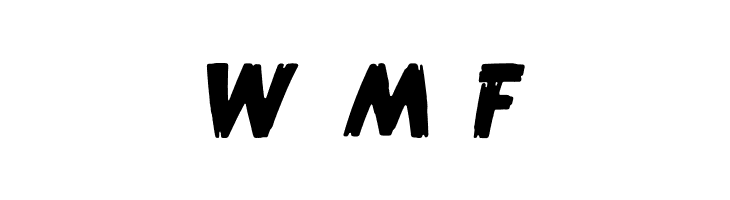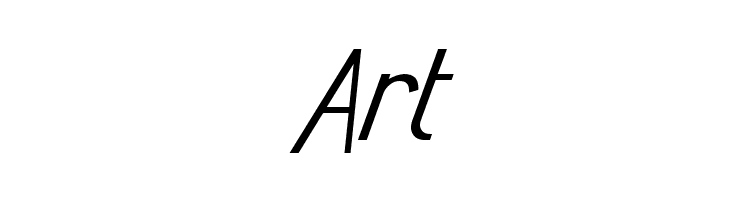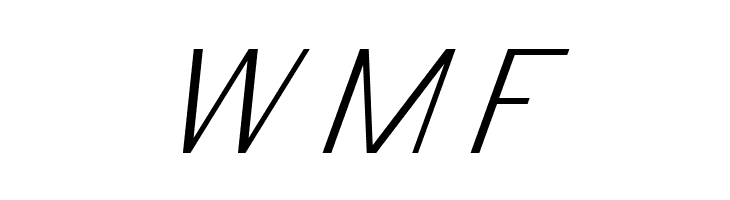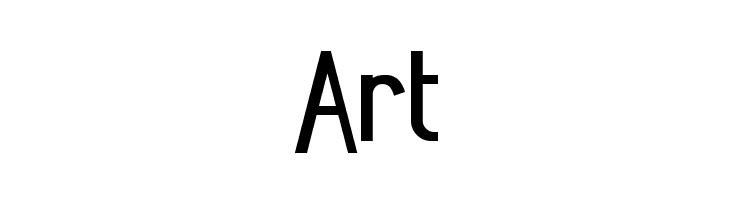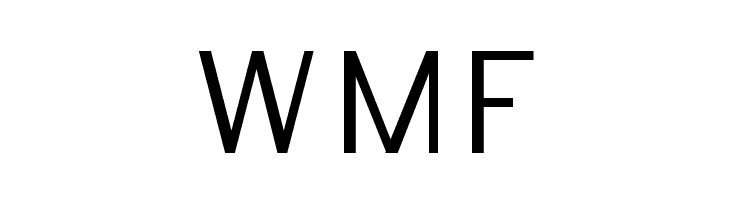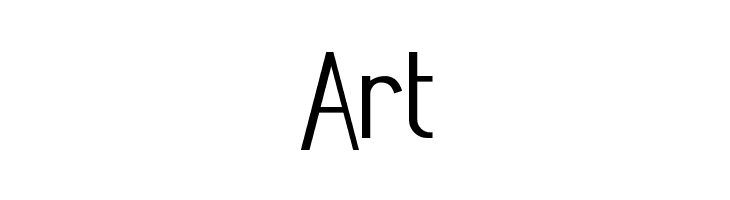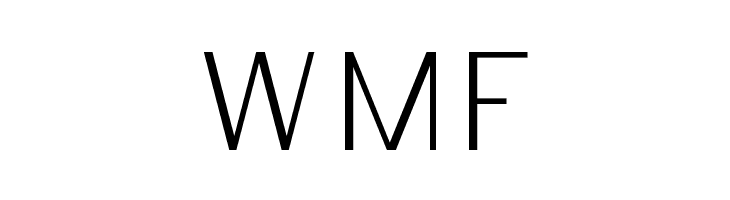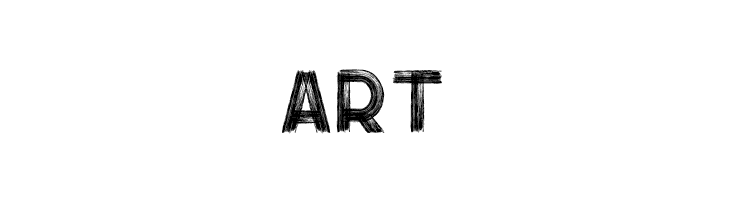
A bold, hand-painted style font with thick strokes and dynamic energy.
A modern, italicized font with medium contrast and a sleek, professional look.
A bold, modern sans-serif font with clean lines and high contrast.
A modern, geometric sans-serif font with a clean and professional look.
A decorative font with characters enclosed in heart shapes, ideal for romantic themes.
A bold, hand-drawn font with a textured, brush-like appearance.
A bold, collegiate-style font with outlined, block-like characters.
A bold, outlined font with a collegiate, varsity style.
A bold, blocky font with strong geometric shapes, ideal for impactful designs.
A playful, handwritten font with tall, narrow letterforms and a lively appearance.